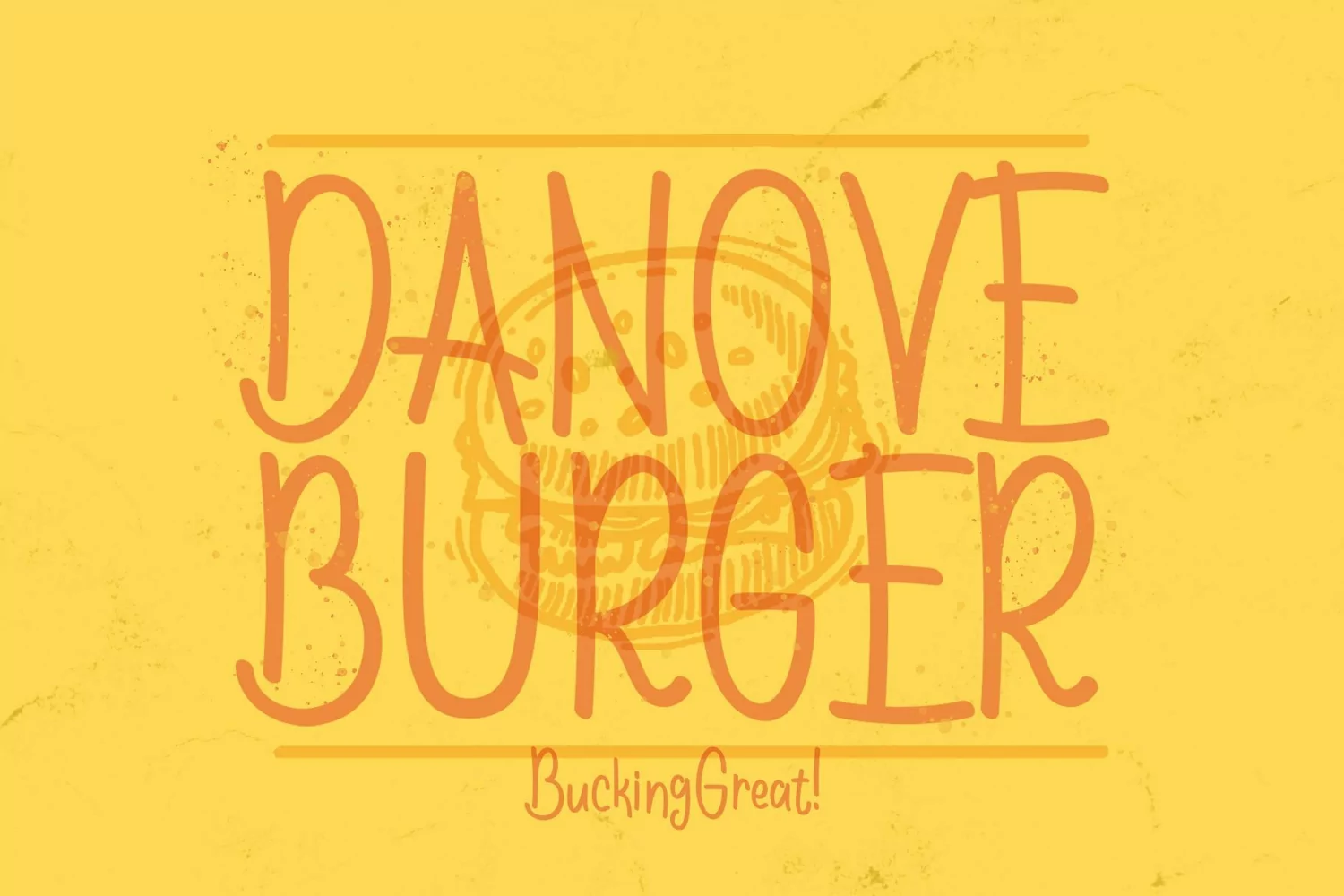
New York Cheese is a fun handwritten font. Perfect for display, poster, quotes, crafting needs, florist needs, wedding needs, business card, signature, packaging, merchandise, branding, logo, logotype, header, tittle, and many more.